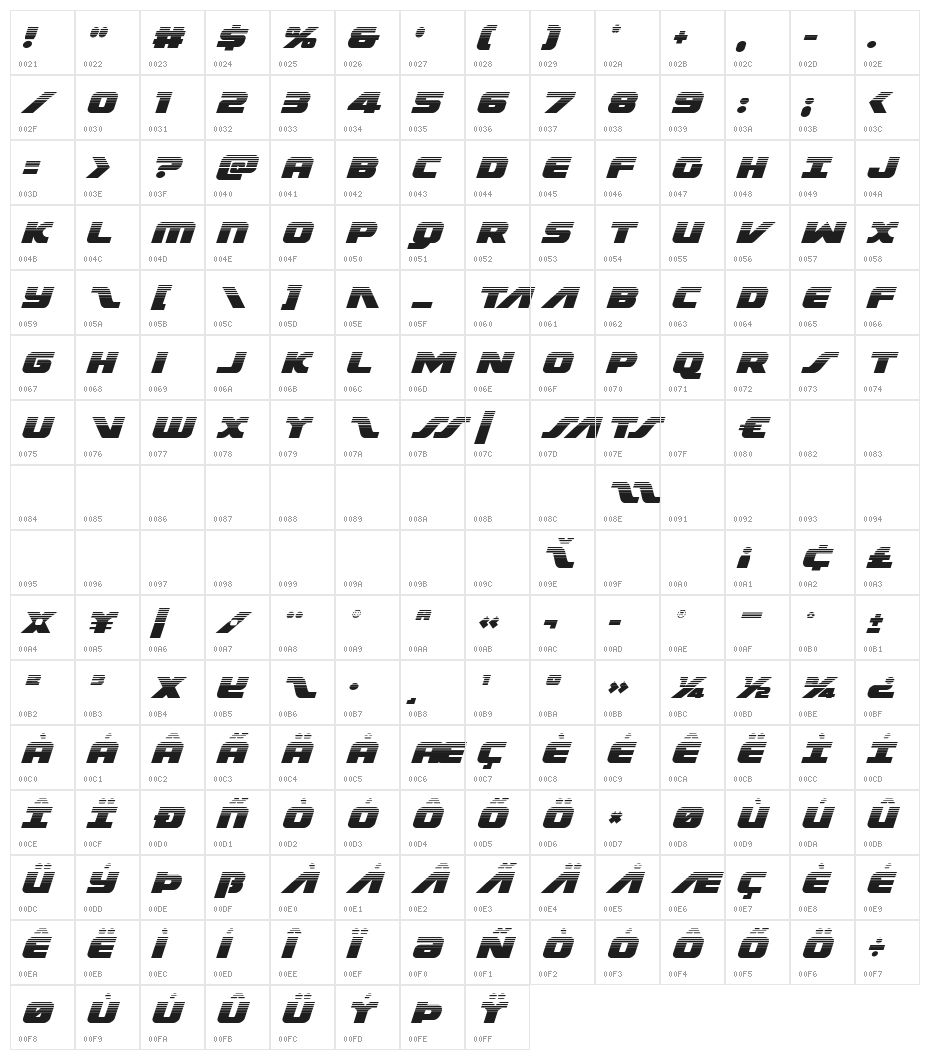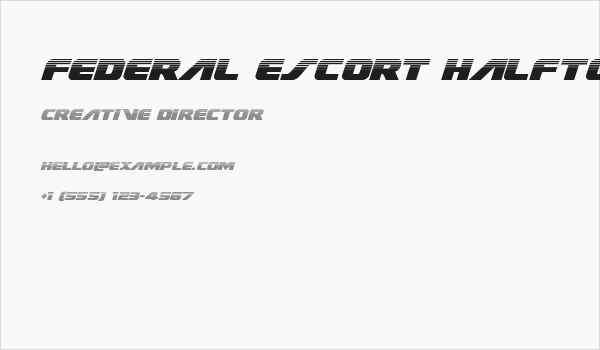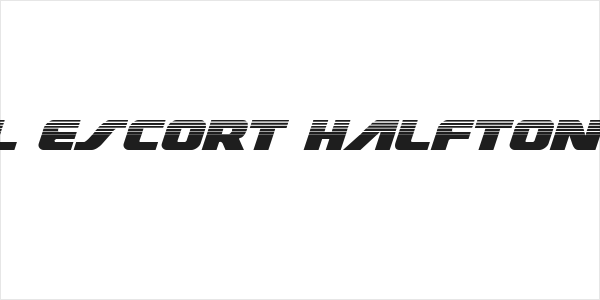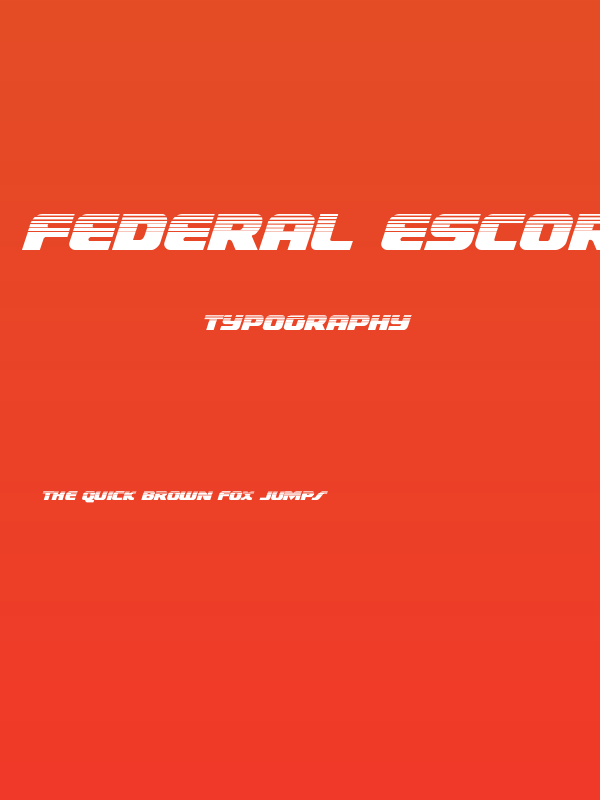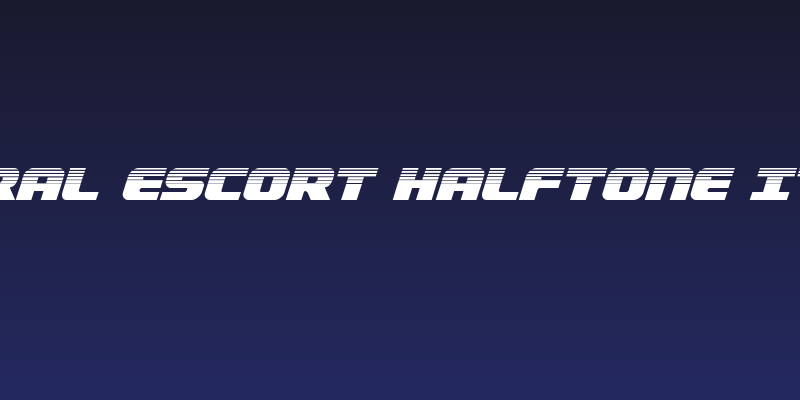
Federal Escort Halftone Italic Font
Federal Escort Halftone Italic Description
This font features a bold, italicized style with a distinct halftone effect, creating a dynamic and futuristic appearance. The uppercase and lowercase letters, along with numbers and special characters, are designed with a series of horizontal lines that give a sense of motion and speed. The characters are wide and have a strong presence, making them suitable for impactful designs. The unique halftone pattern adds texture and depth, enhancing the visual interest of the text. This font is ideal for projects that require a modern and edgy look, such as technology-related branding, sports team logos, or dynamic posters.
| Proposed Projects | Ideal for technology branding, sports logos, dynamic posters, and futuristic designs. |